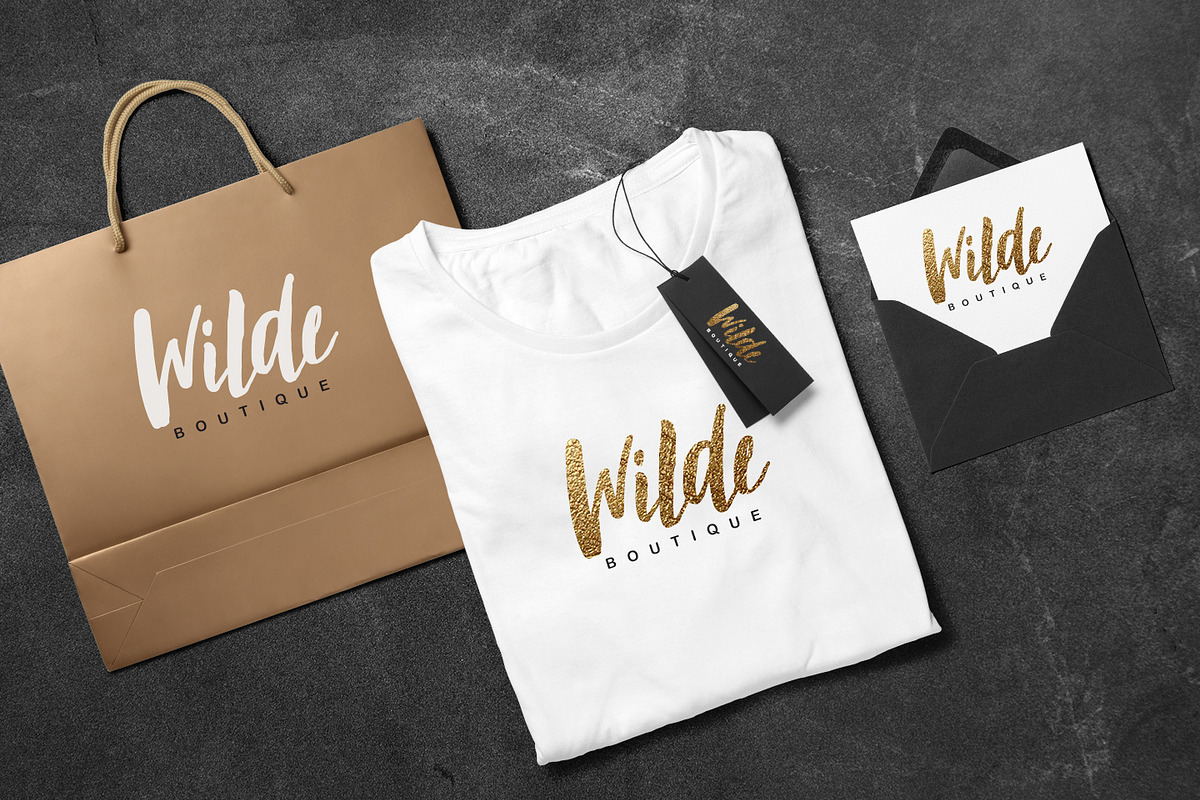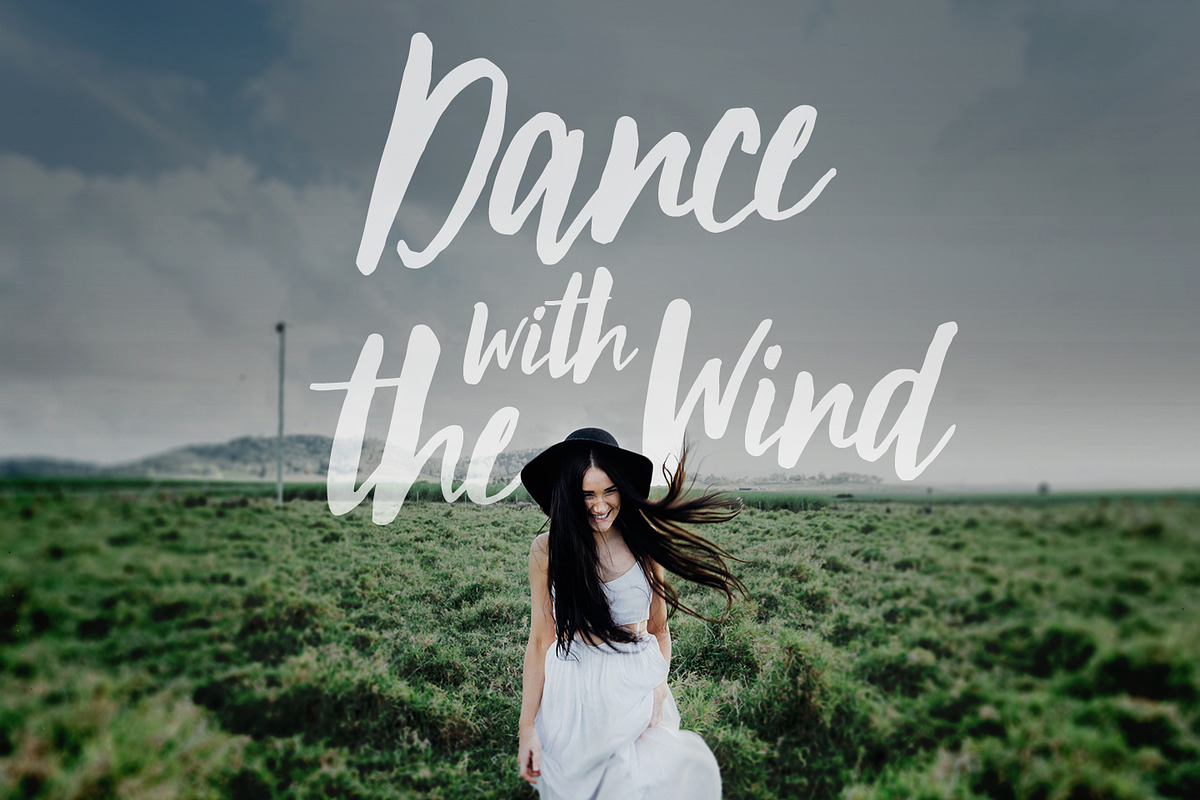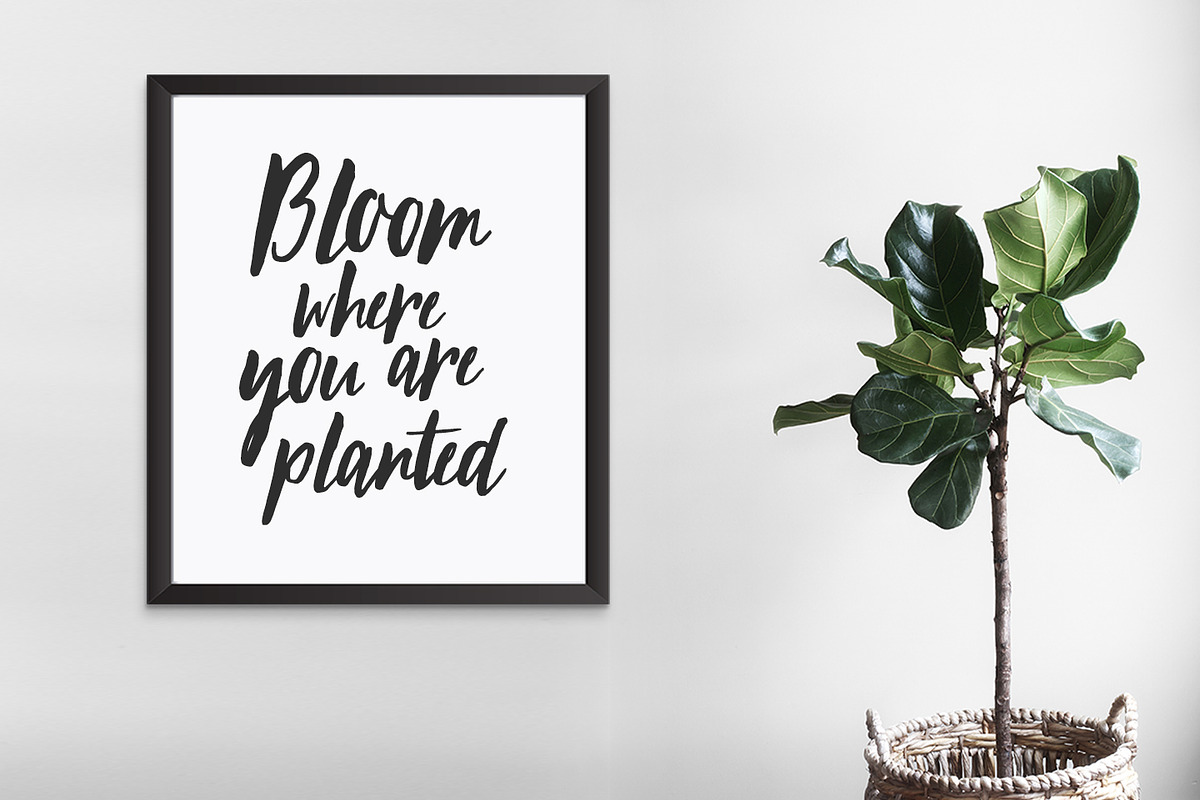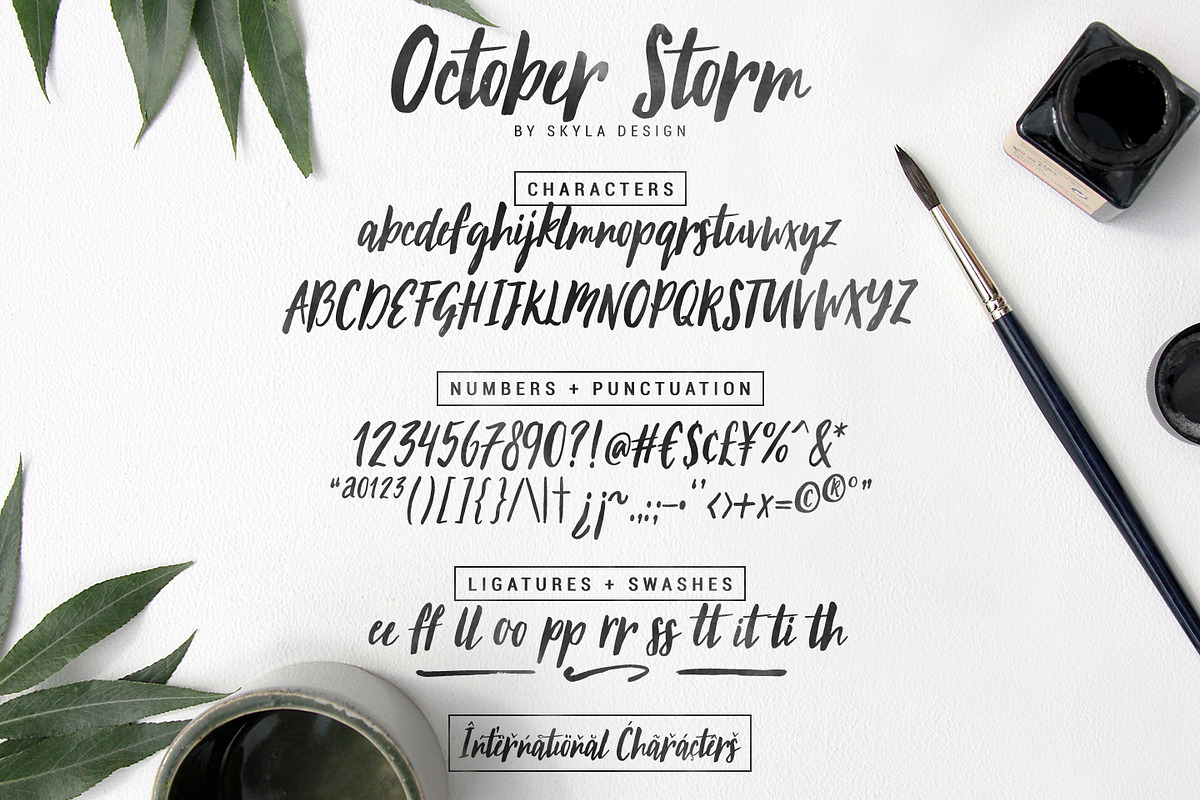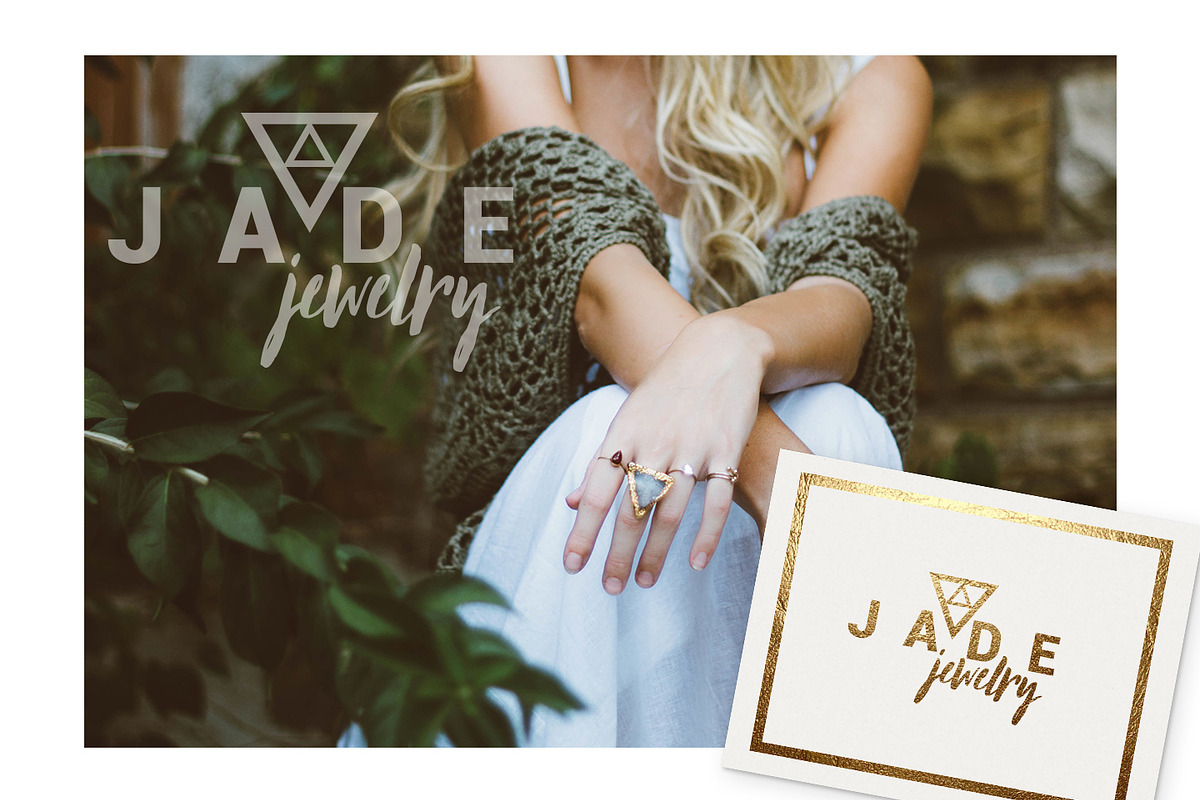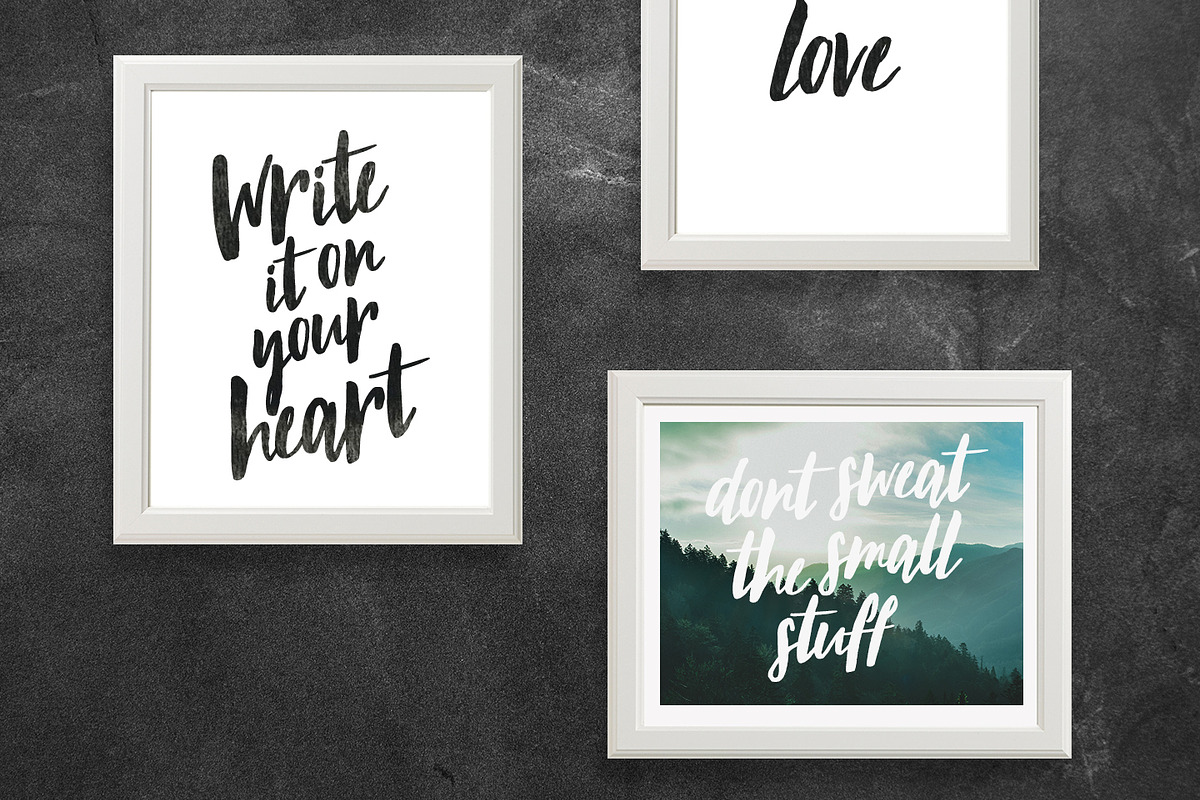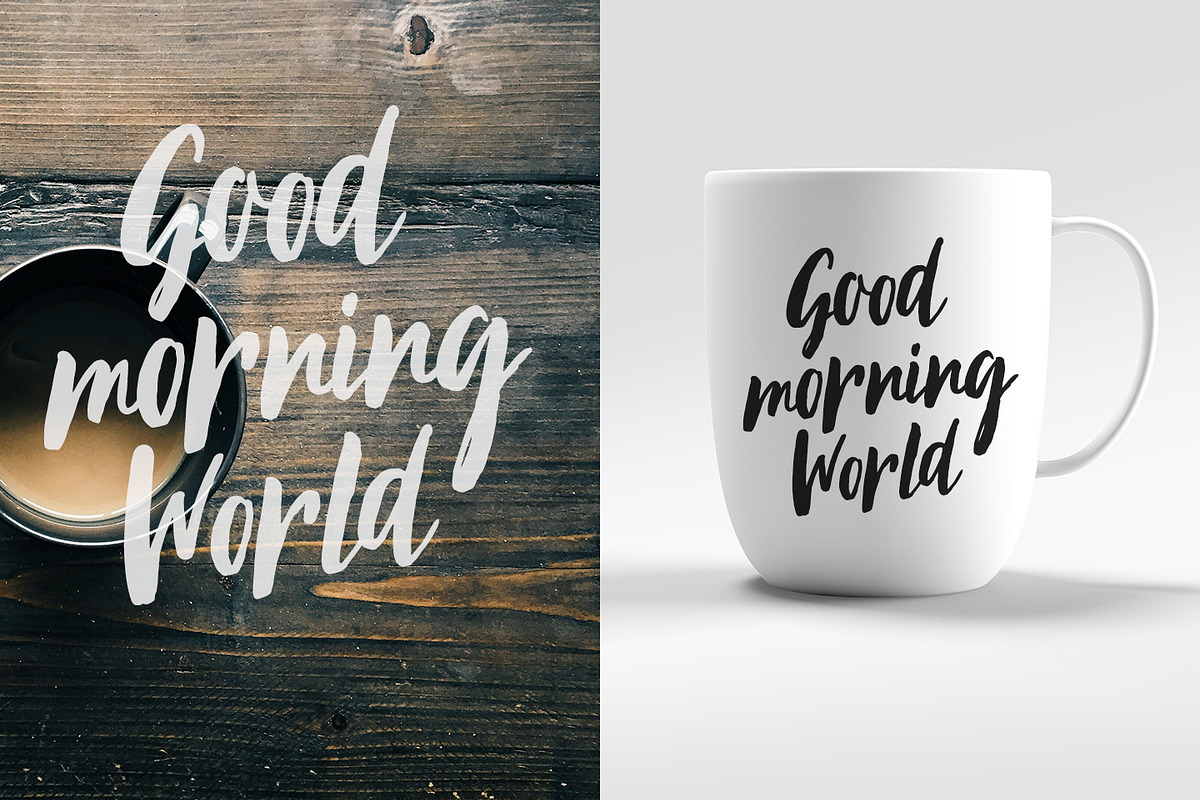
October Storm modern brush font
October Storm modern brush font by Angele Kamp is a font selected for branding, posters, packaging, typography.
- This font also includes some great swashes and a png file of ink splashes.
Why October Storm modern brush font is worth a look
October Storm modern brush font by Angele Kamp fits naturally into Branding, posters, packaging, typography.